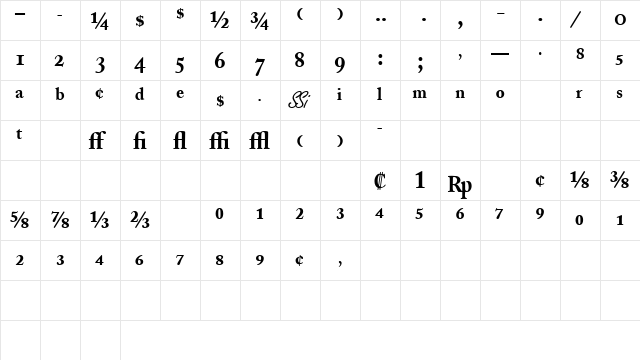
CaslonProBlackSSK Regular Font Preview
CaslonProBlackSSK Regular
CaslonProBlackSSK Regular Font Details
Design Context for CaslonProBlackSSK Typeface
CaslonProBlackSSK offers clean, dependable letterforms without strong stylistic allegiance, making it a practical choice for designers who need flexibility.
Pro Tip: Use CaslonProBlackSSK in both headline and body roles to test its range before committing to a single application.